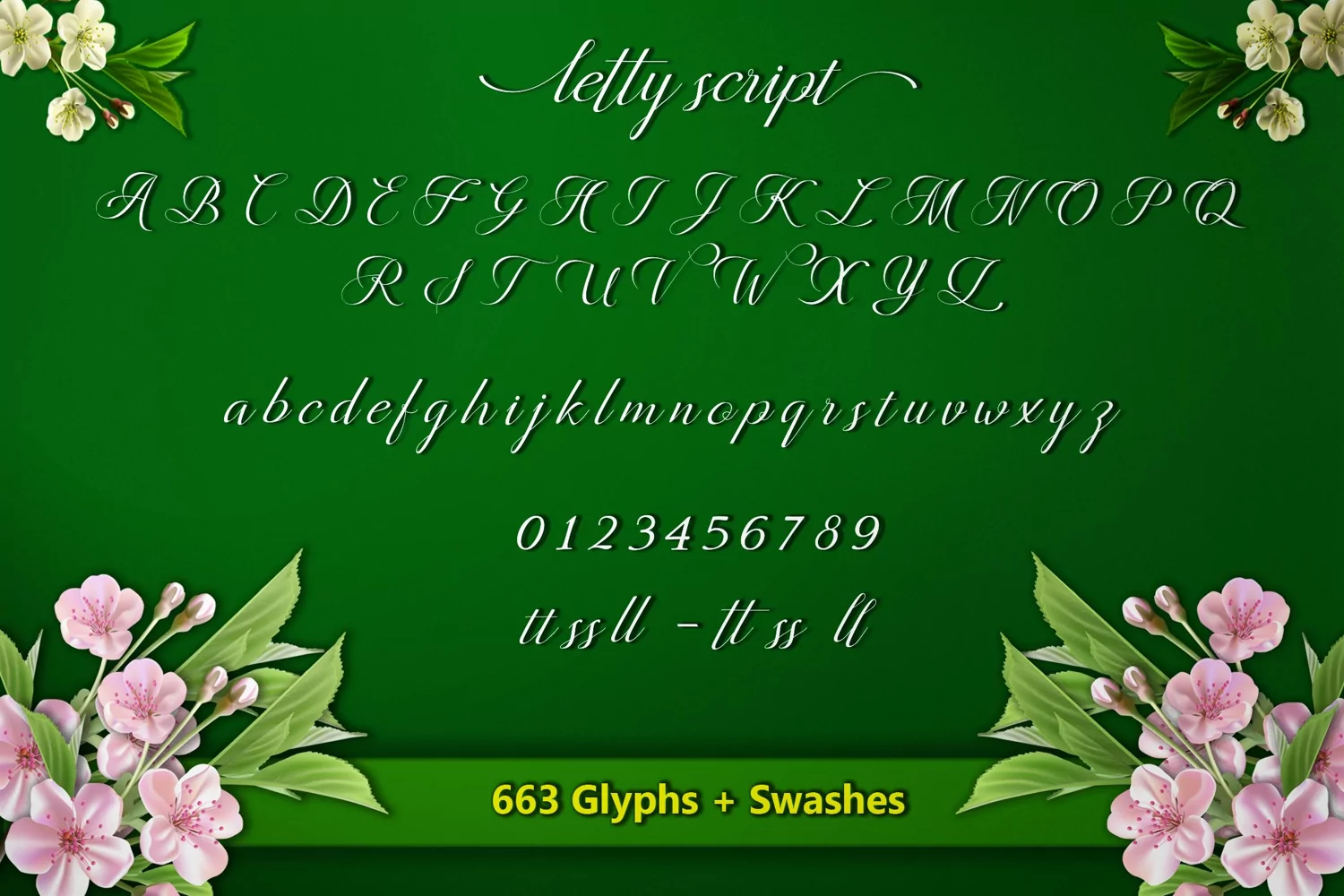
Letty Script
Letty Script a new Modern calligraphy fonts, combining calligraphy typefaces with a free flowing and moving baseline. It has a casual, yet elegant touch. features 633+ glyphs and alternate characters. including initial and terminal letters, alternates and multiple language support.Letty Script Uppercase & Lowercase International Languange & Symbols Support Punctuation & Number PUA Unicode Range Standard Stylistic Alternates Stylistic Set 1-28 Character Variant Contextual.